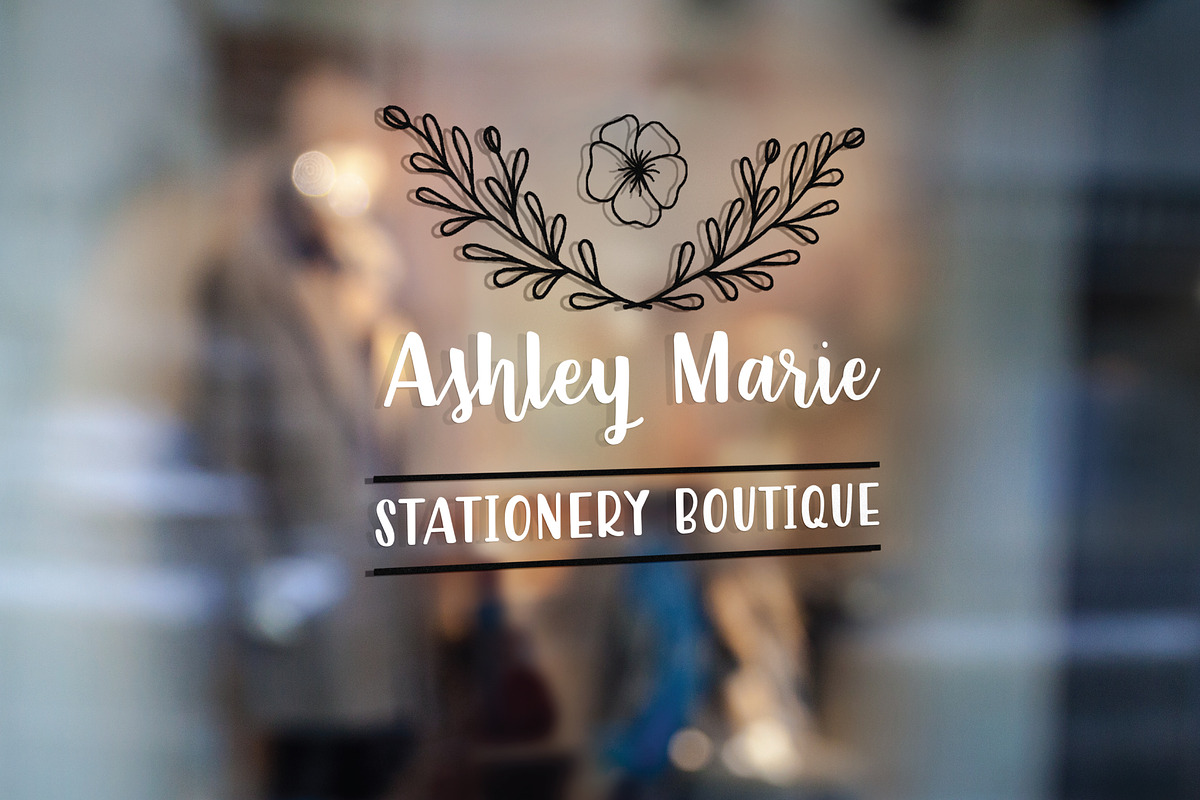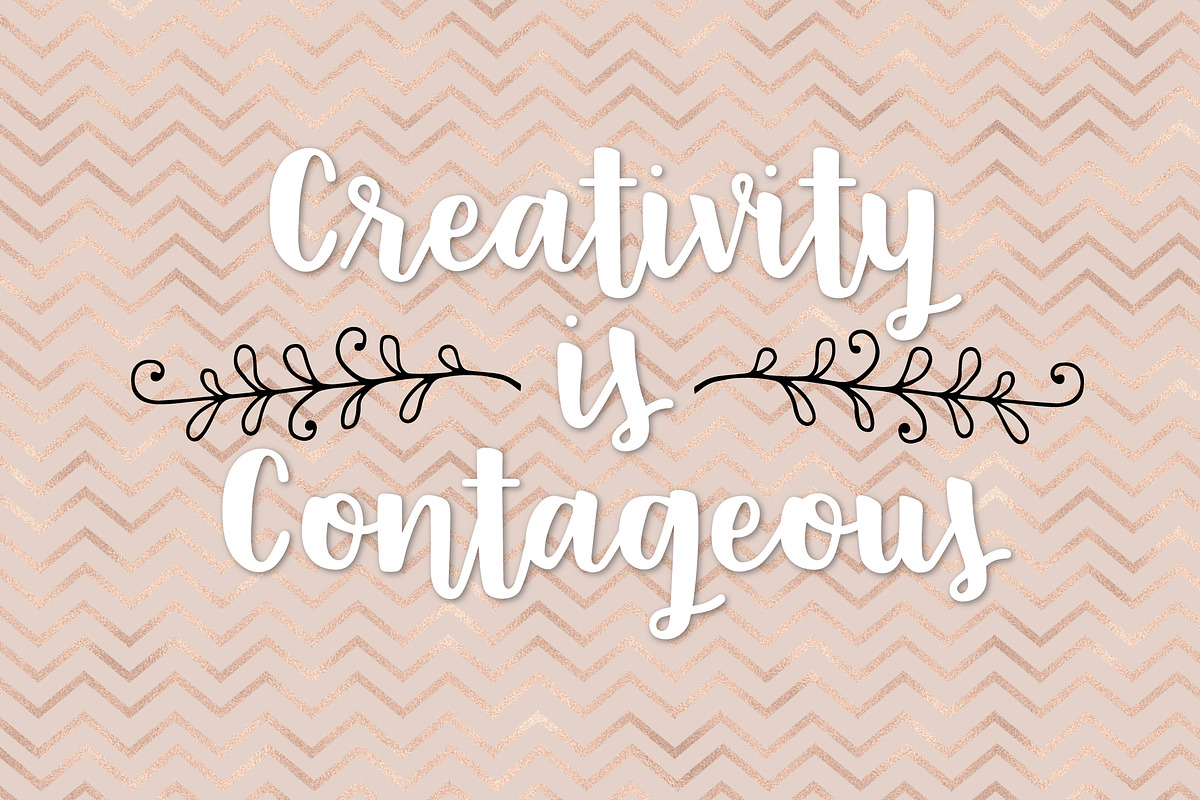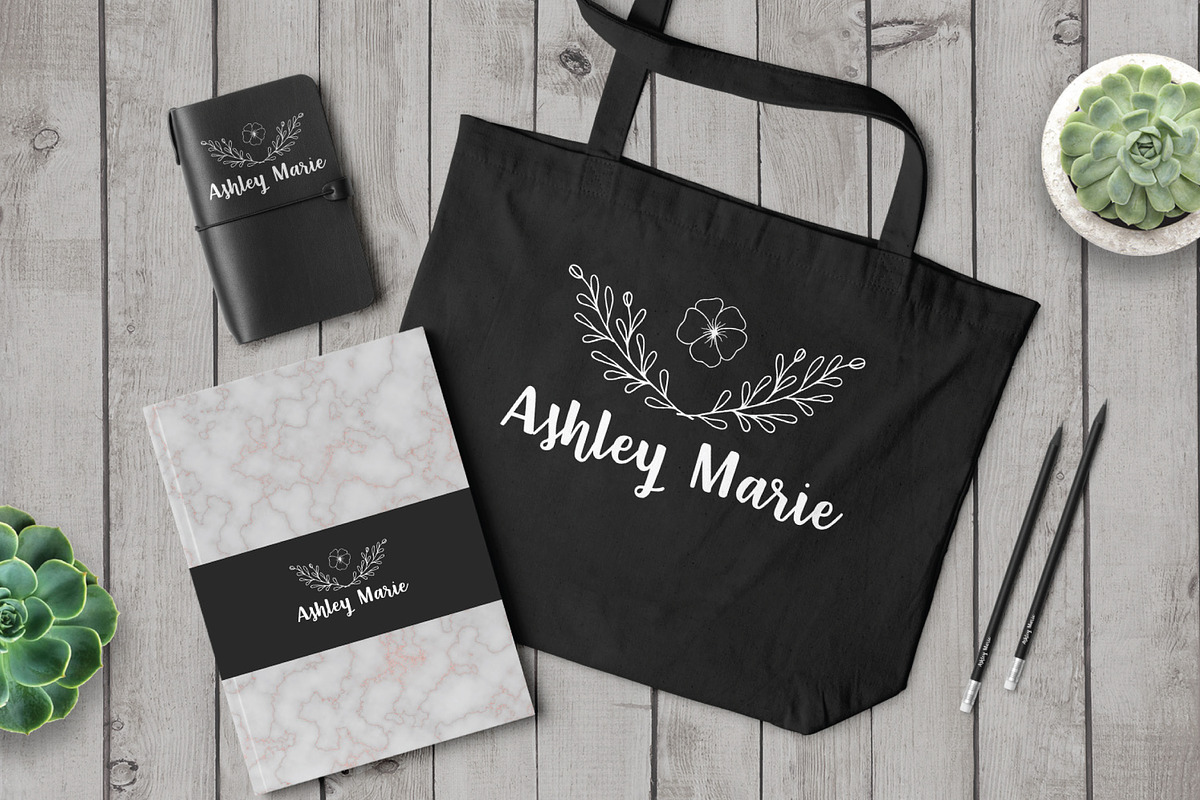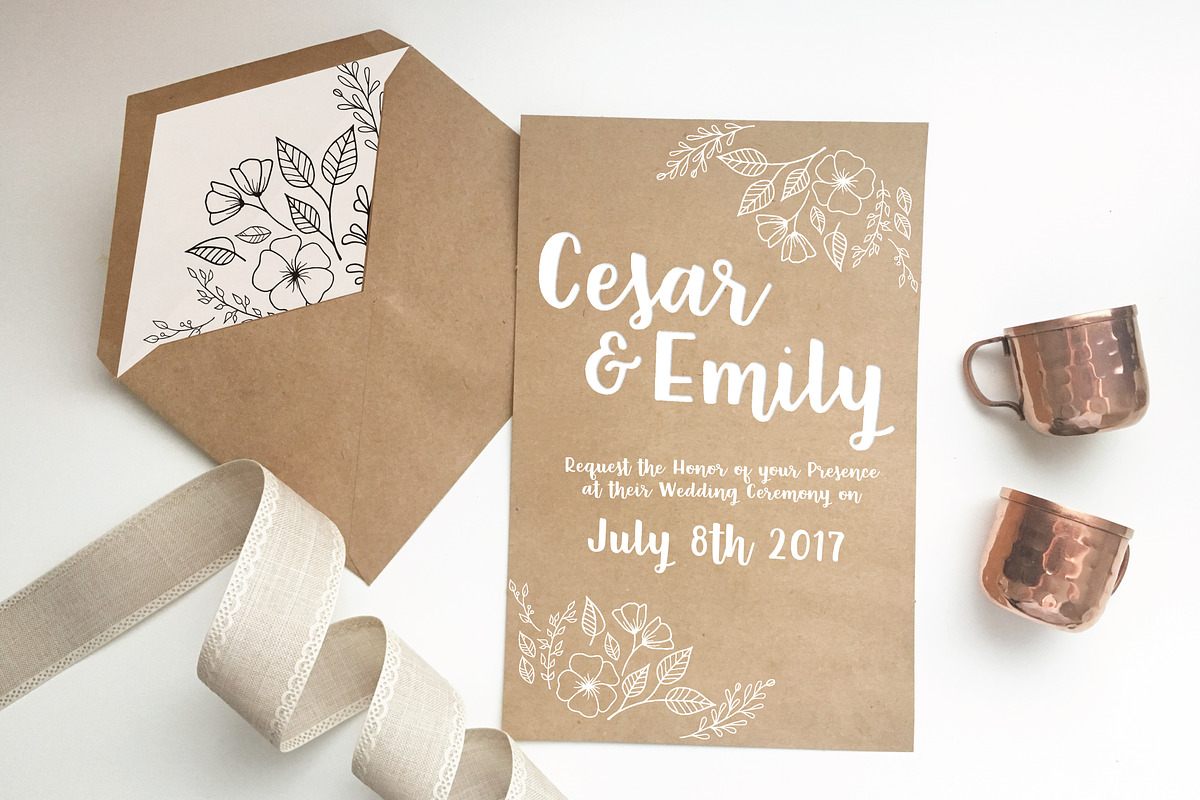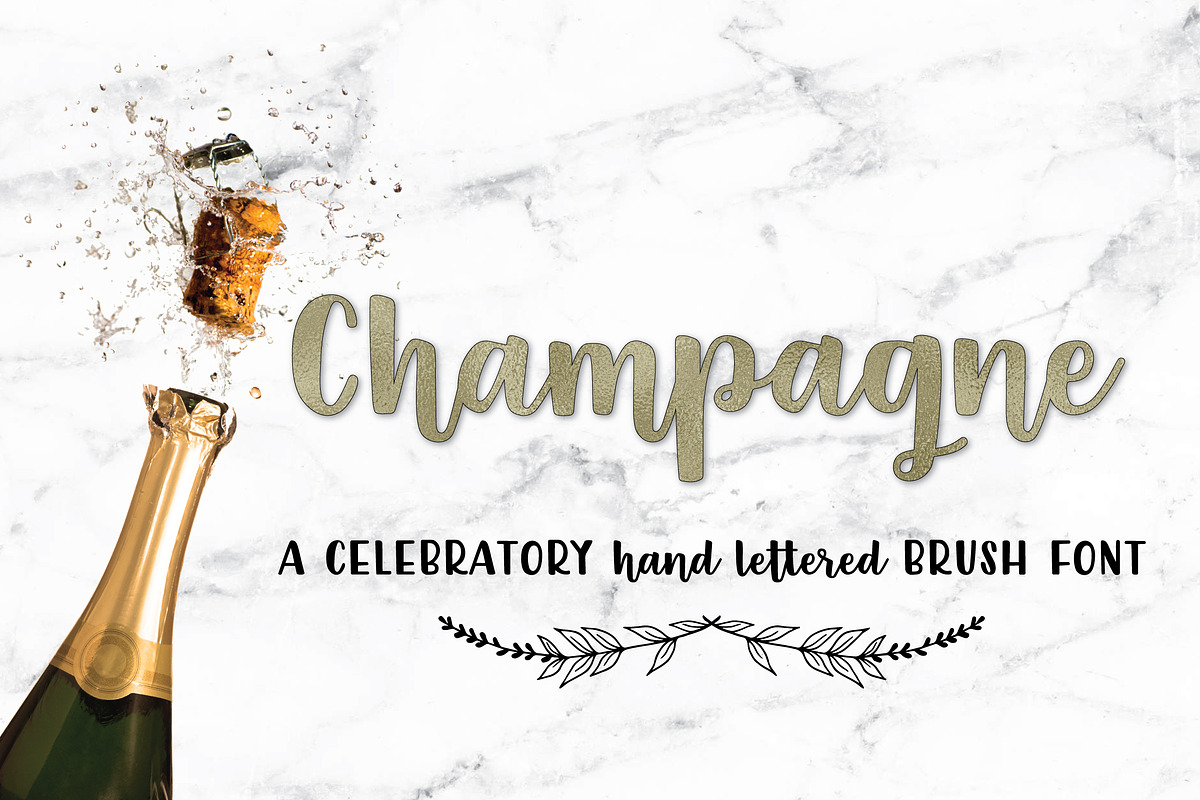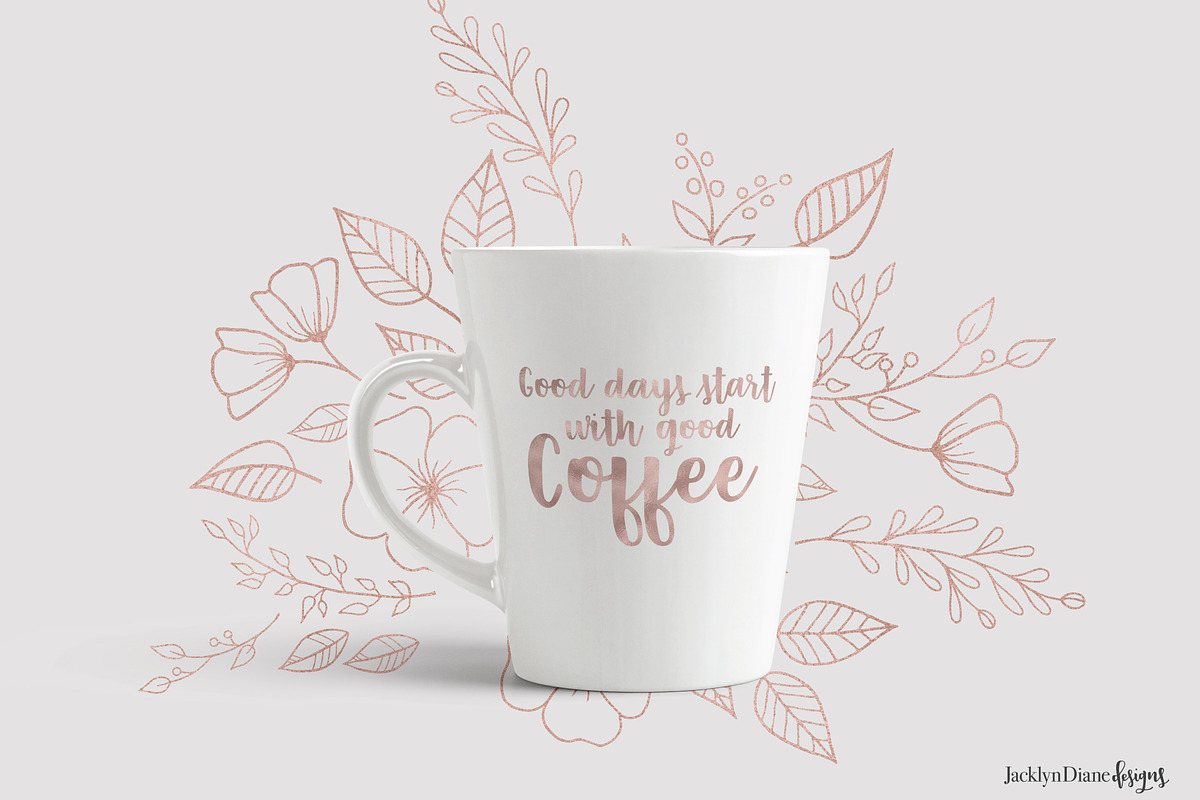
Champagne Script Handlettered Font
Champagne Script Handlettered Font by JacklynDiane is a font selected for branding, posters, packaging, typography.
- A complete lowercase script alphabet with san serif capitals.
Why Champagne Script Handlettered Font is worth a look
Champagne Script Handlettered Font by JacklynDiane fits naturally into Branding, posters, packaging, typography.